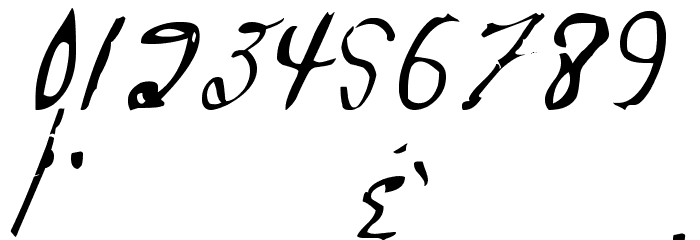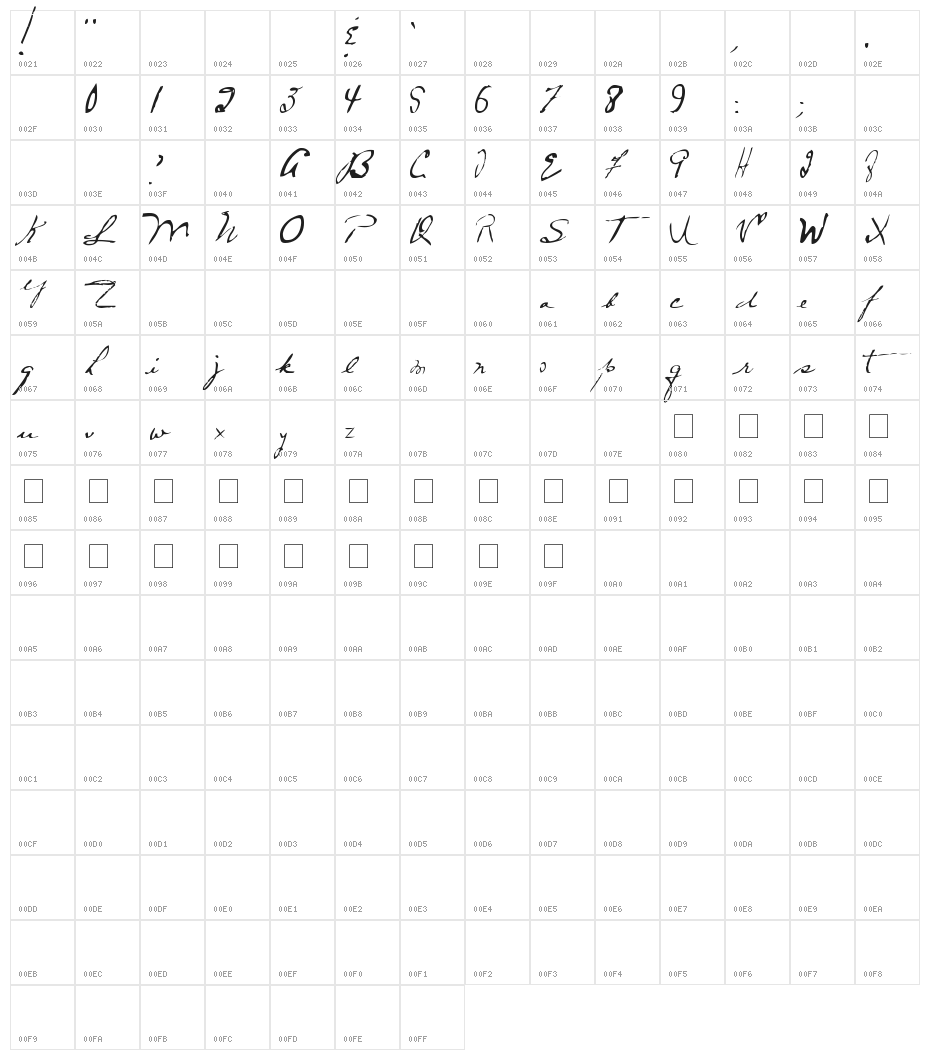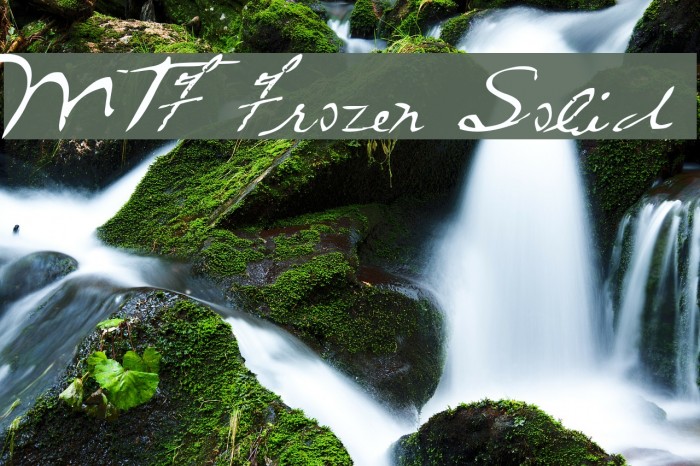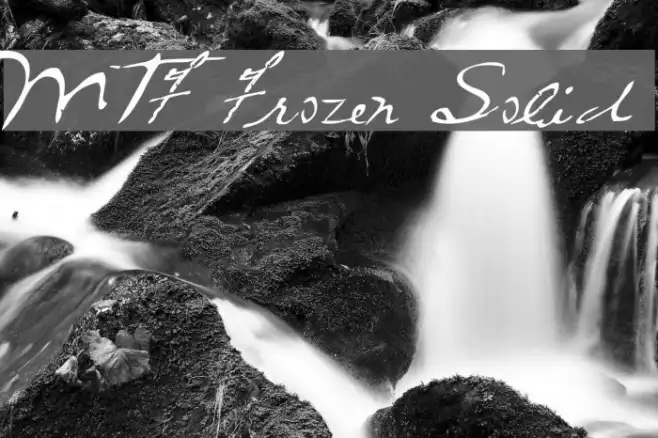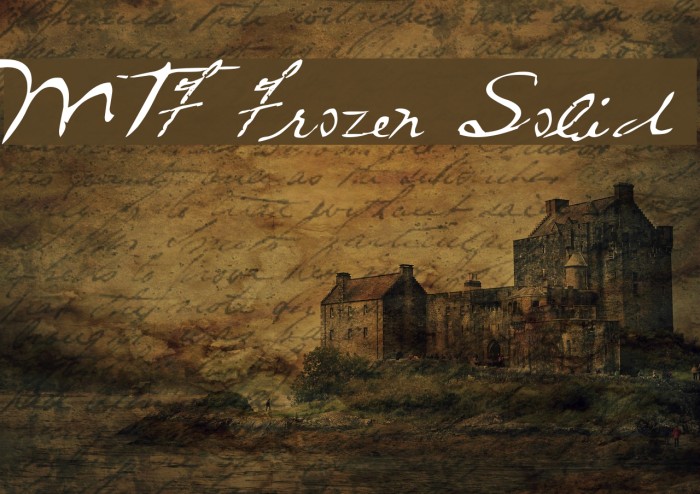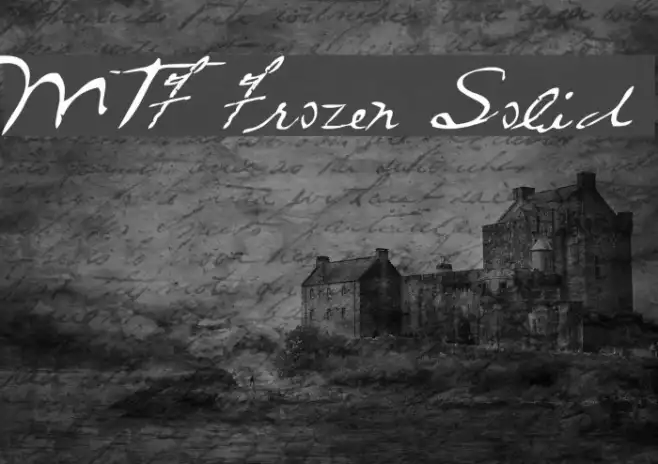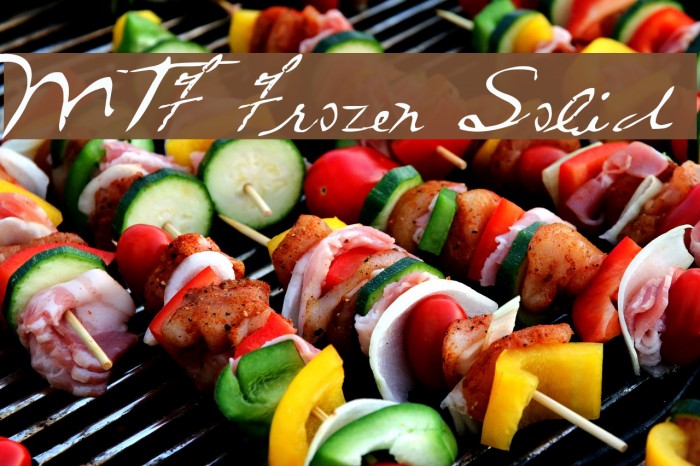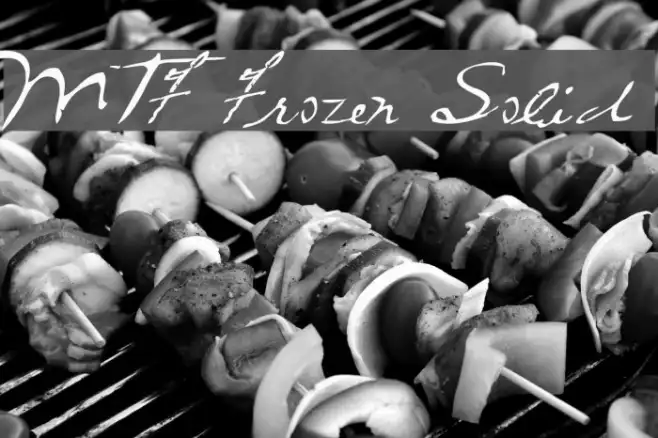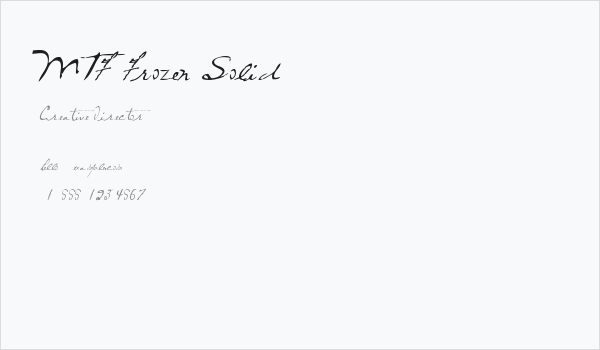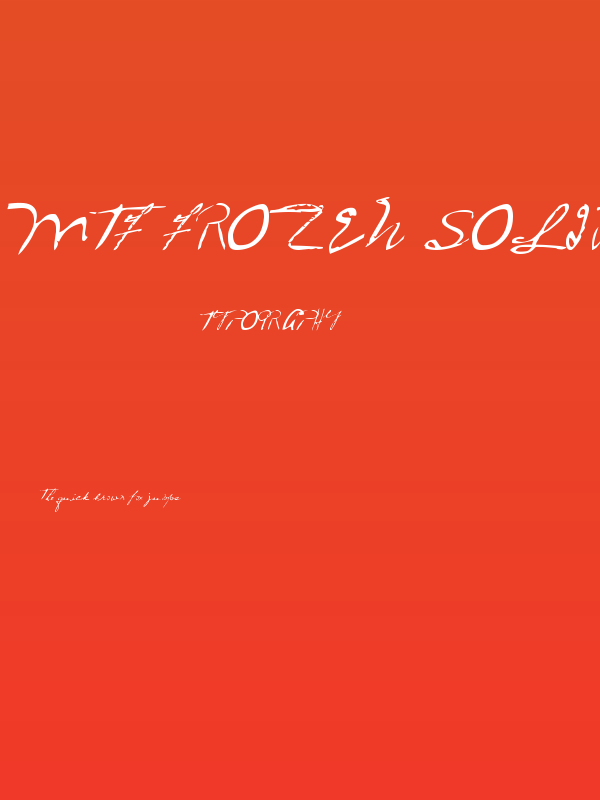
MTF Frozen Solid Font
MTF Frozen Solid Description
This font features a dynamic and expressive style, reminiscent of handwritten script with a bold and artistic flair. The letters are characterized by their fluid, sweeping strokes and varying thickness, creating a sense of movement and energy. The uppercase letters are particularly striking, with dramatic flourishes and unique shapes that give each character a distinct personality. The lowercase letters maintain the same fluidity, with some characters extending below the baseline, adding to the overall dynamic appearance. The numbers and special characters are equally expressive, maintaining the same artistic style as the letters. This font is ideal for projects that require a personal touch or a creative, artistic vibe.
| Proposed Projects | Ideal for artistic projects, personal branding, invitations, and creative posters. |